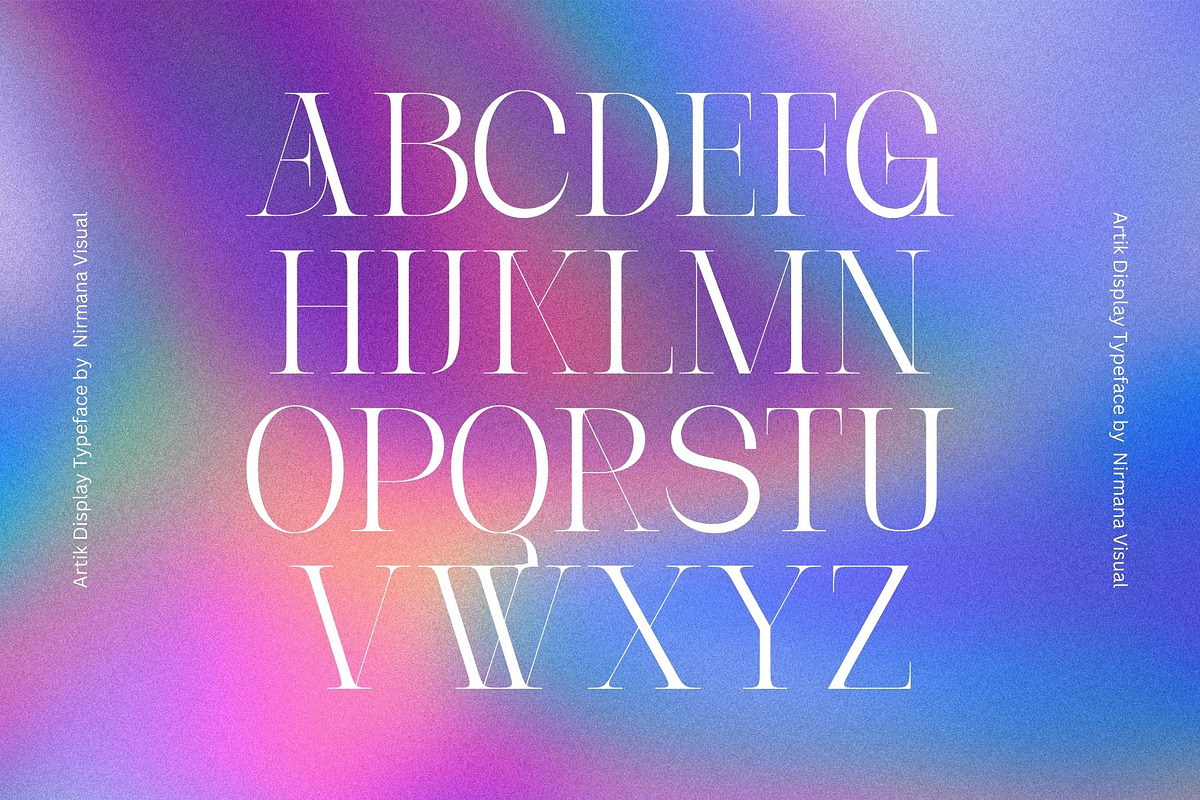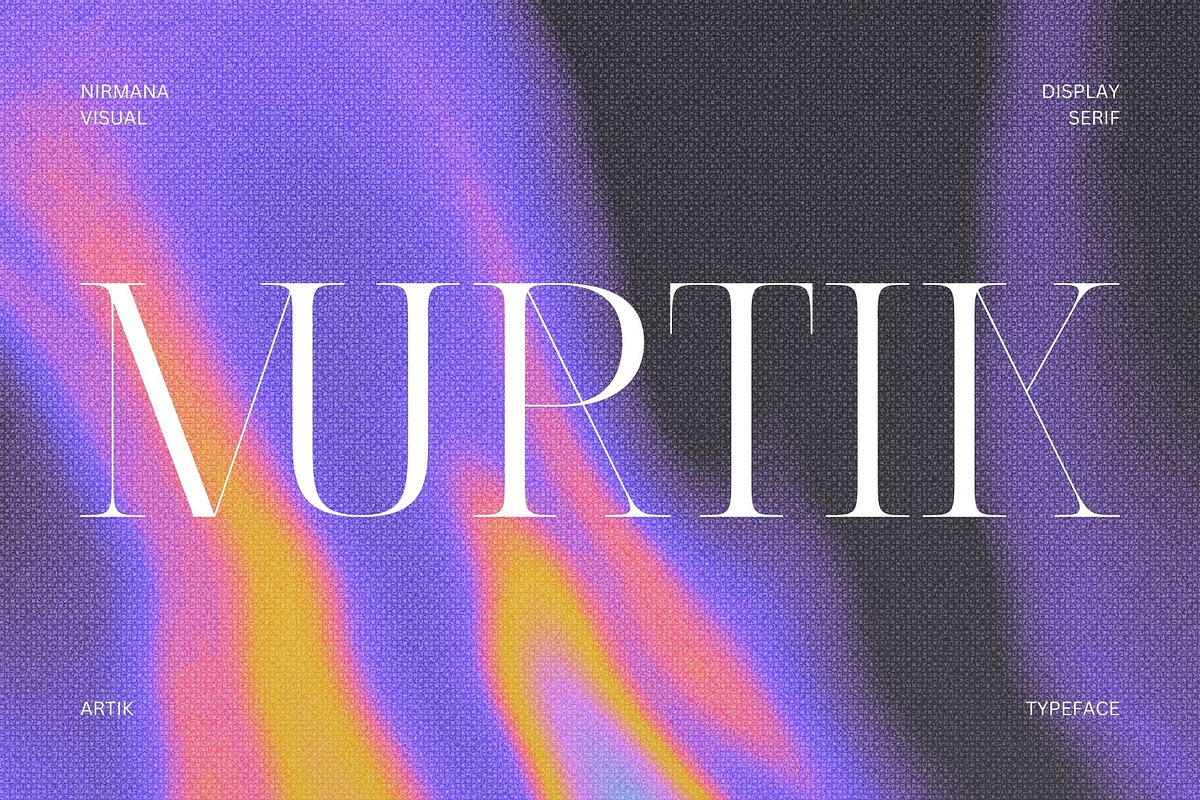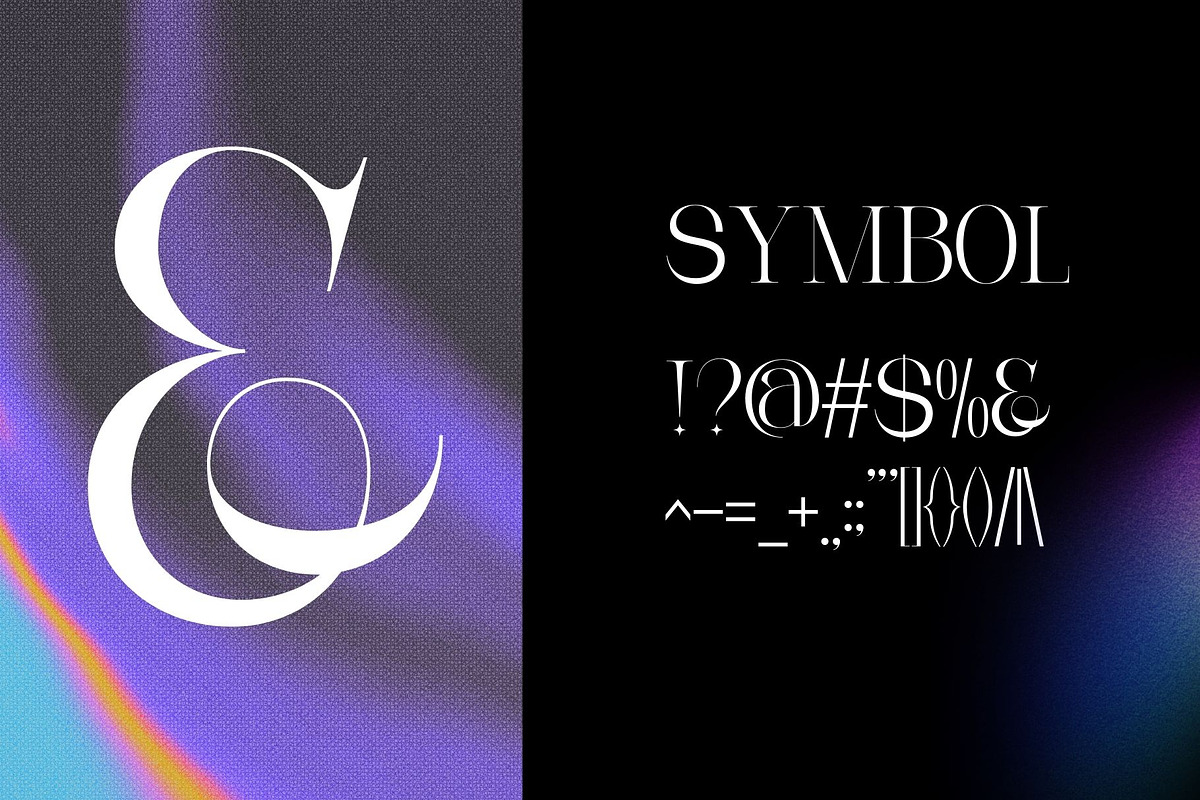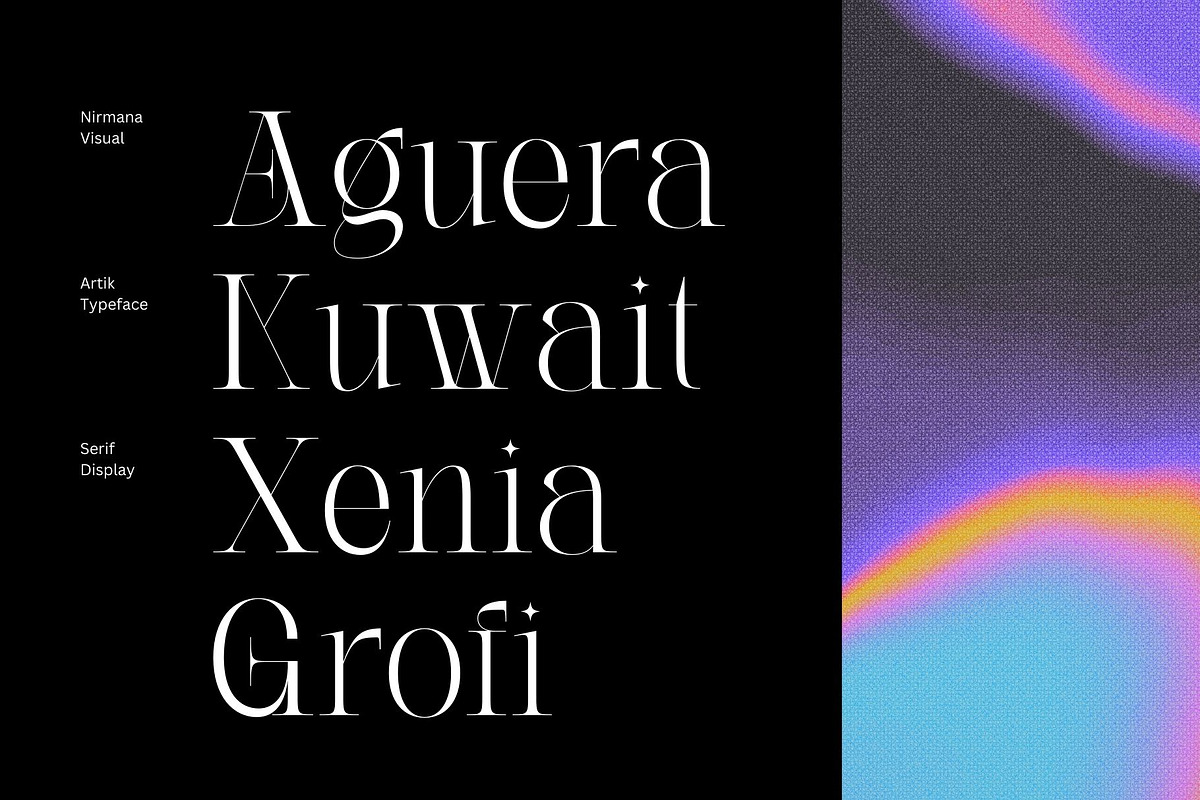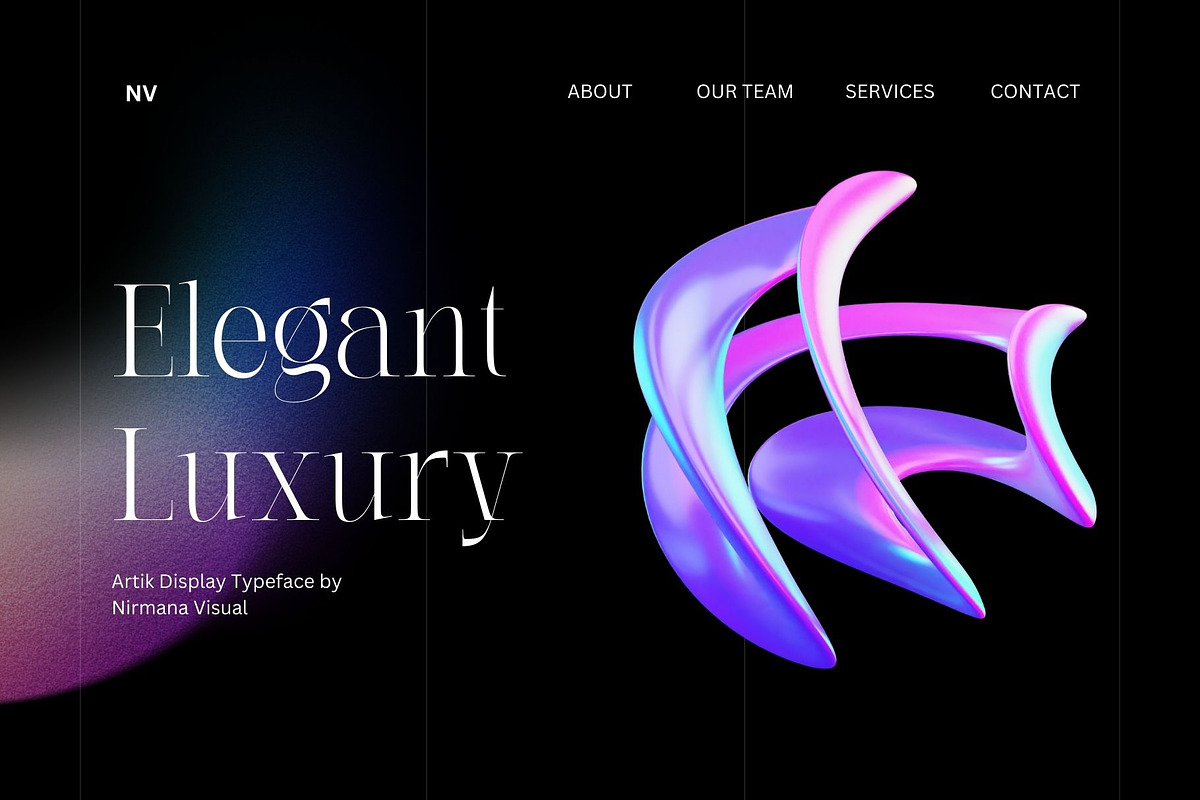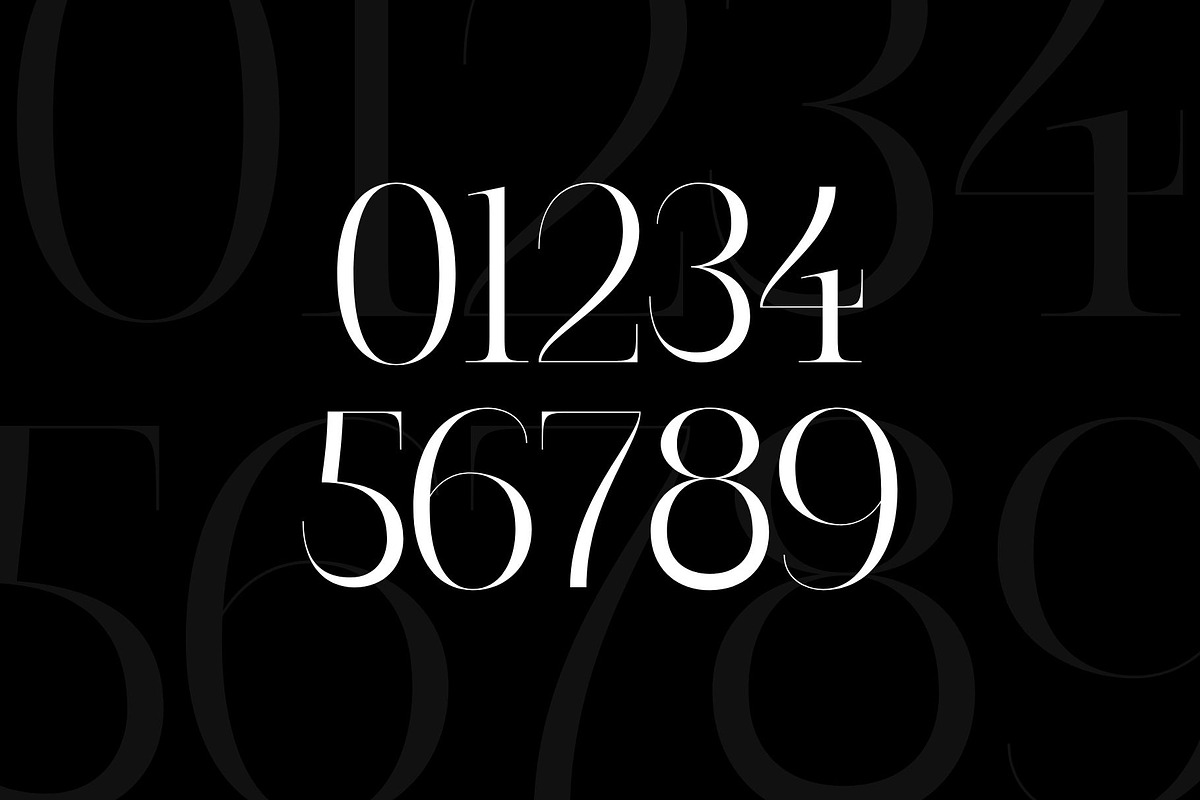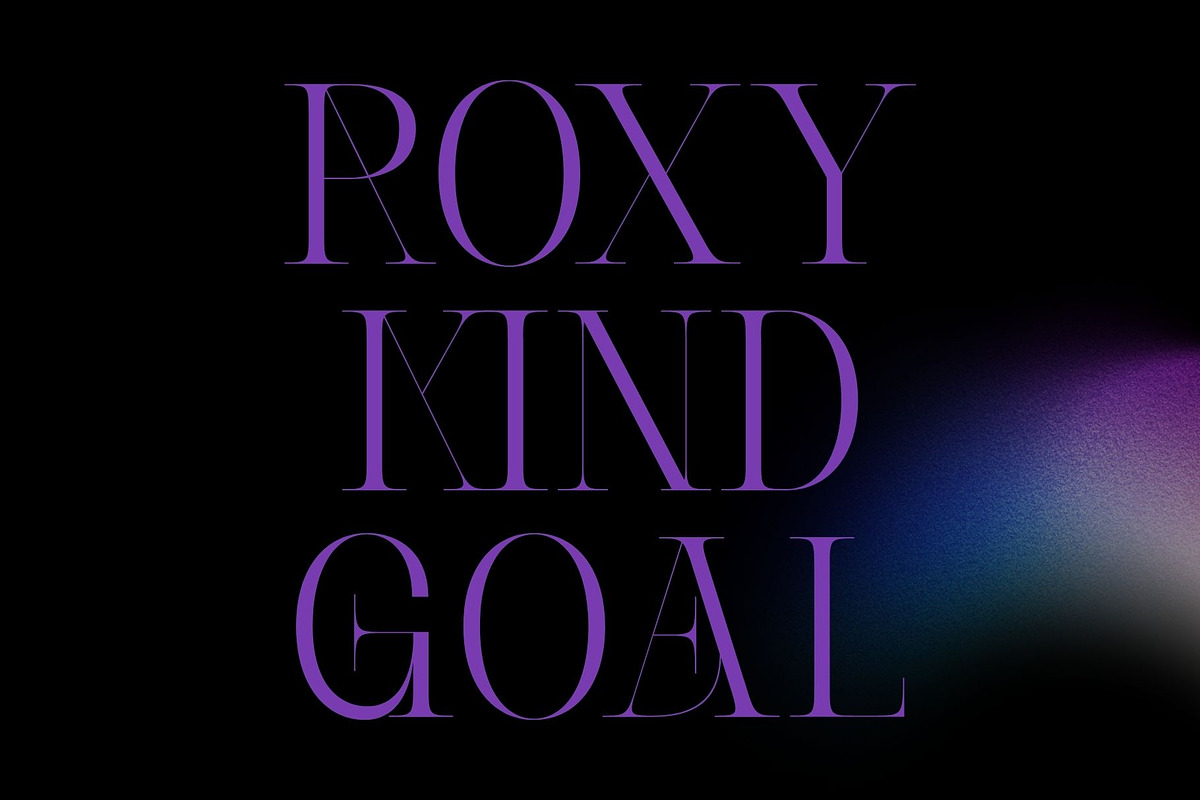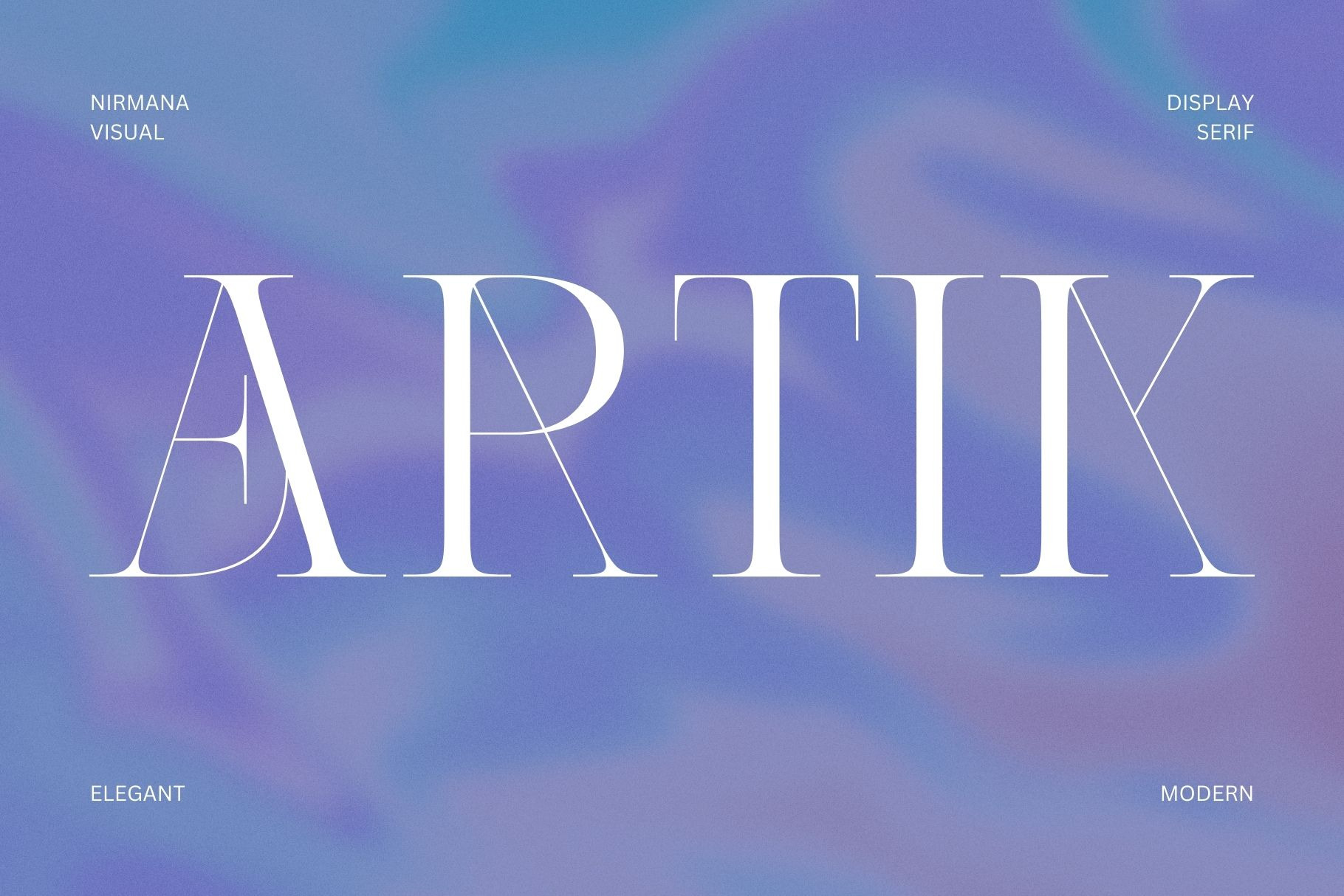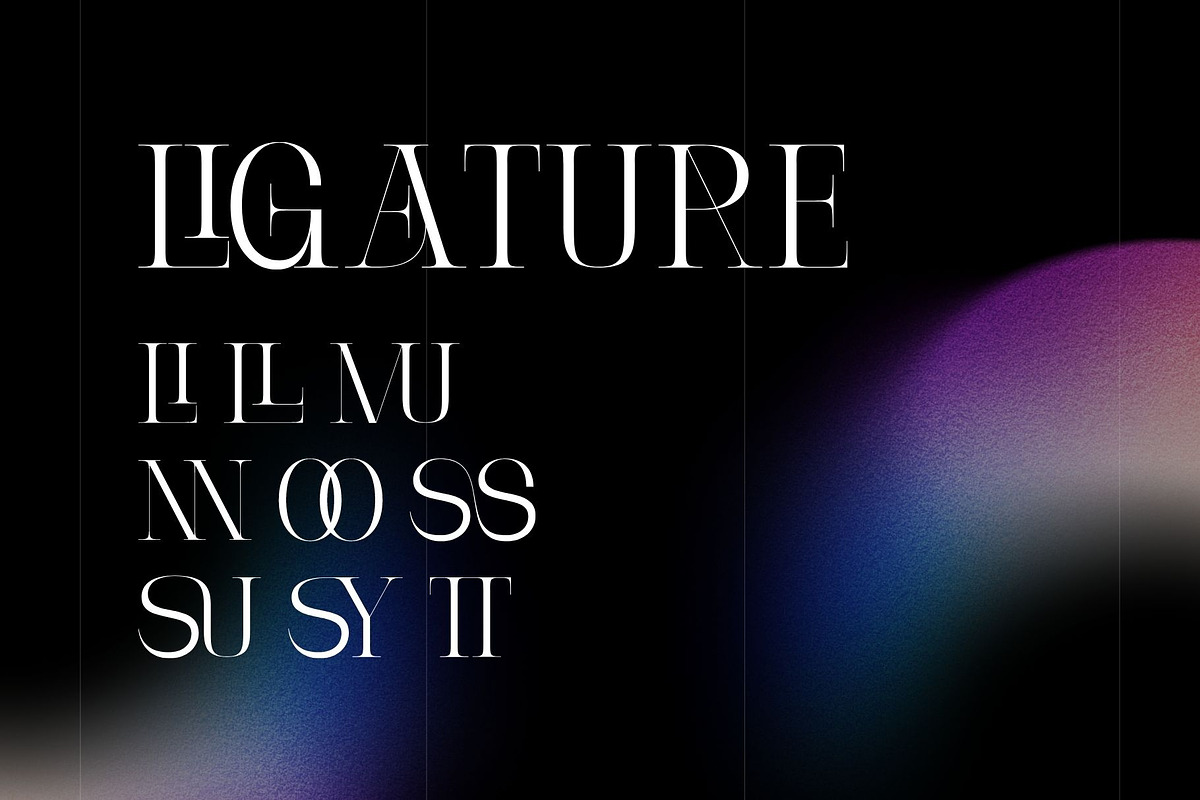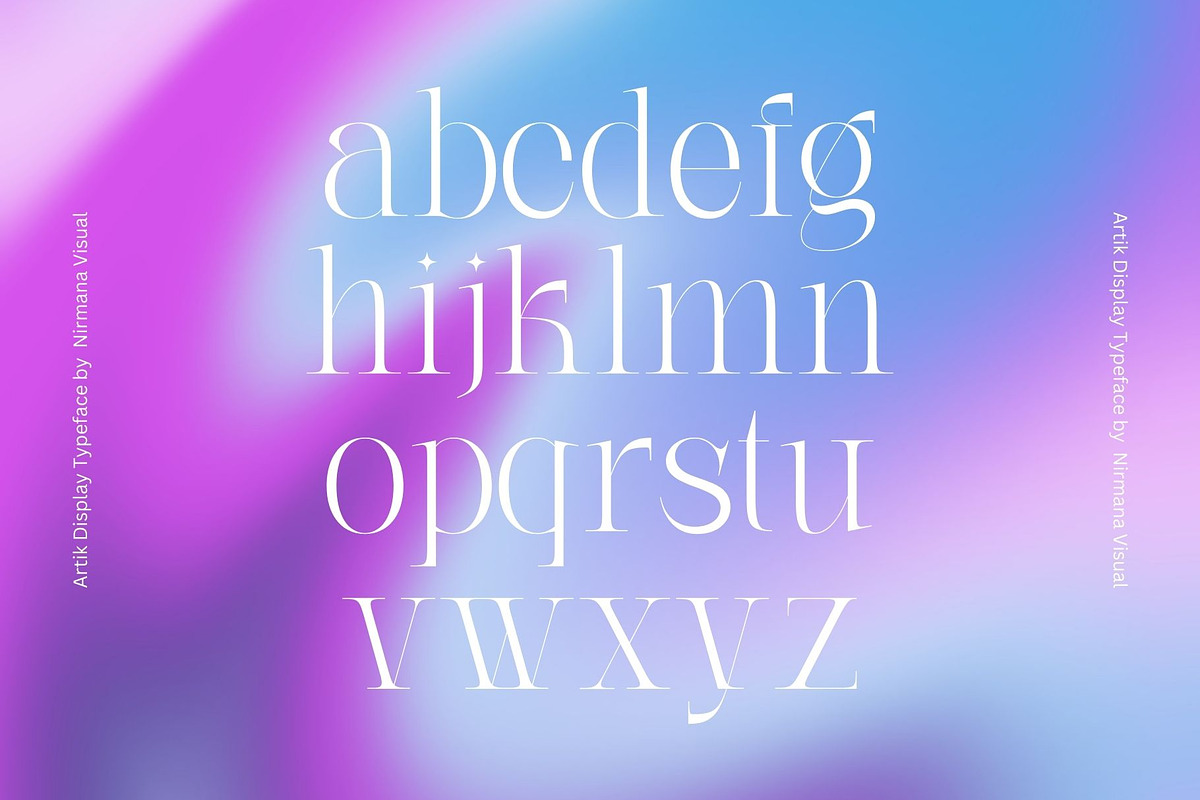
Artik - Modern Serif Font
Artik - Modern Font, Serif Display Typeface.
Artik offers beautiful typographic harmony for a diversity of design projects, including logos & branding, social media posts, advertisements & product designs.